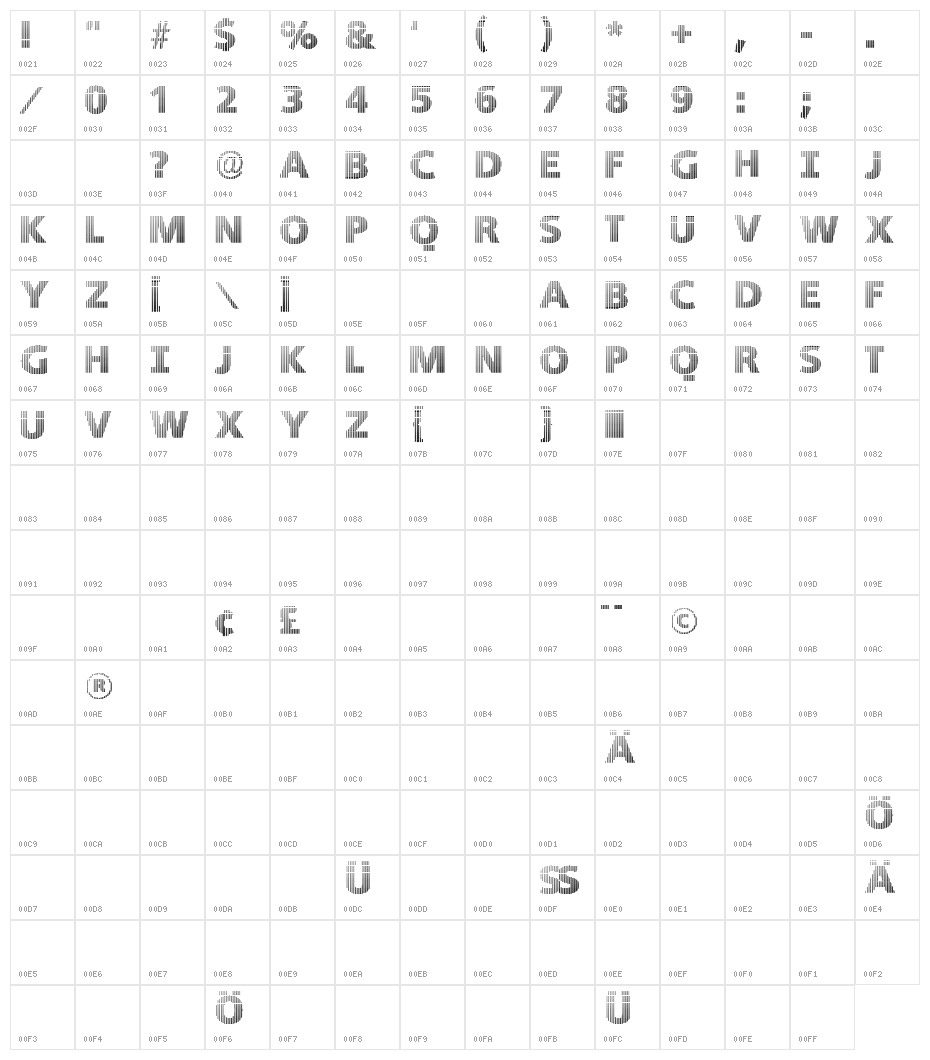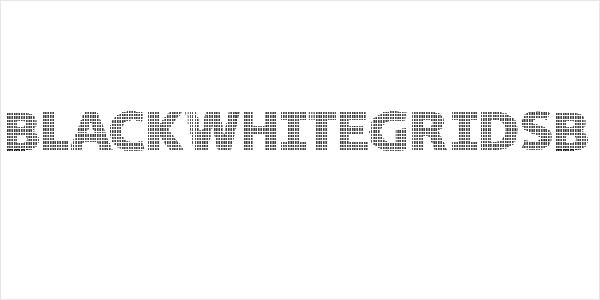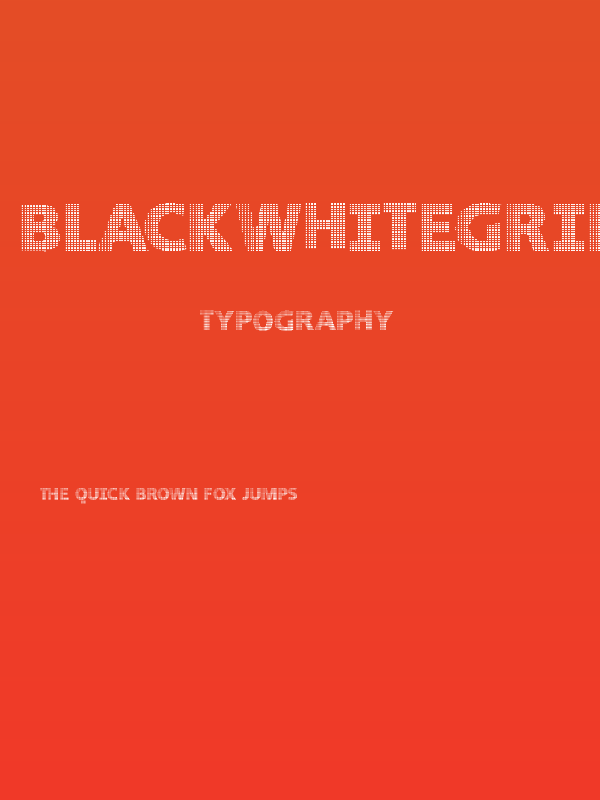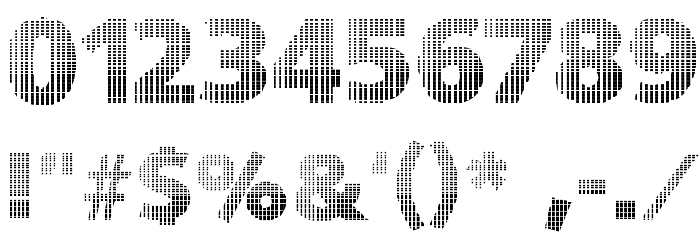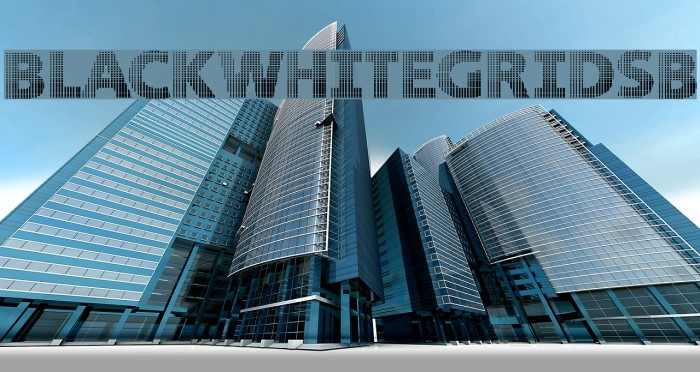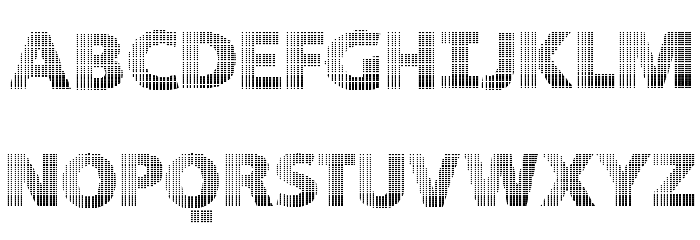
BlackWhiteGridsB Font
This font features a unique design with characters composed of vertical lines and dots, creating a grid-like appearance. The letters and numbers are bold and have a strong presence, making them stand out. The style is highly decorative, with a modern twist that combines elements of digital and analog aesthetics. The characters are evenly spaced, and the grid pattern adds a textured effect that is visually striking. This font is ideal for projects that require a bold statement and a contemporary look.
| Proposed Projects | Ideal for digital art, posters, album covers, and modern branding projects. |